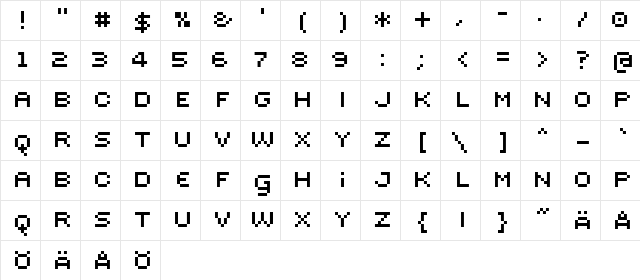
Sevenet 7 Regular
Design Context for Sevenet 7 Typeface
Sevenet 7 offers clean, dependable letterforms without strong stylistic allegiance, making it a practical choice for designers who need flexibility.